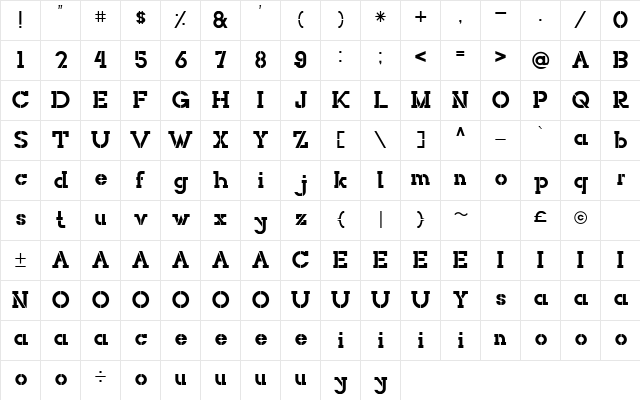
NORTHCLIFF Stencil
| Style | Stencil |
| Foundry | Edric Studio |
| Designer | M Nouval |
Design Context for NORTHCLIFF Typeface
NORTHCLIFF borrows the utilitarian aesthetic of stencil lettering, with its characteristic cutaways and no-frills construction lending an industrial edge.
Ideal for industrial branding, streetwear, military-adjacent aesthetics, and urban signage projects.